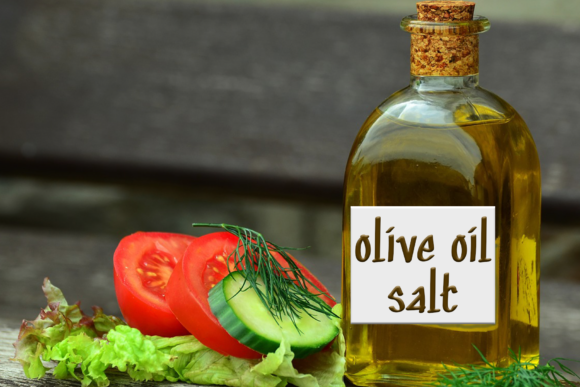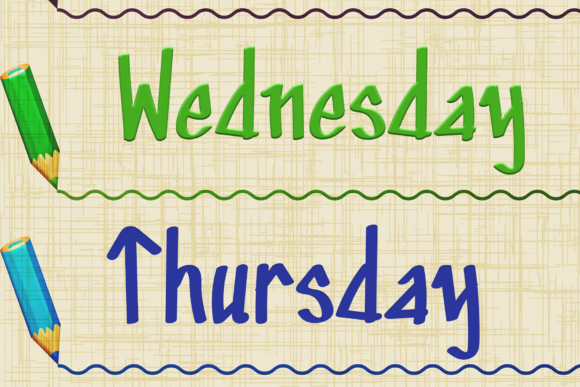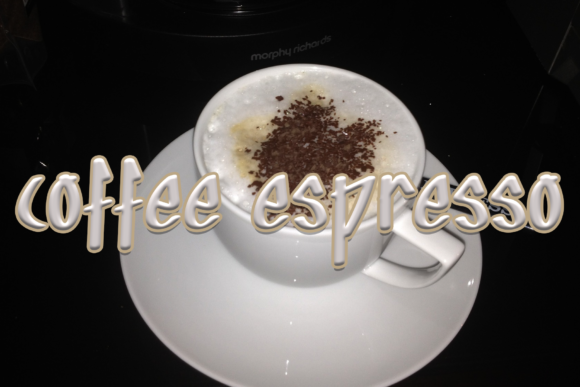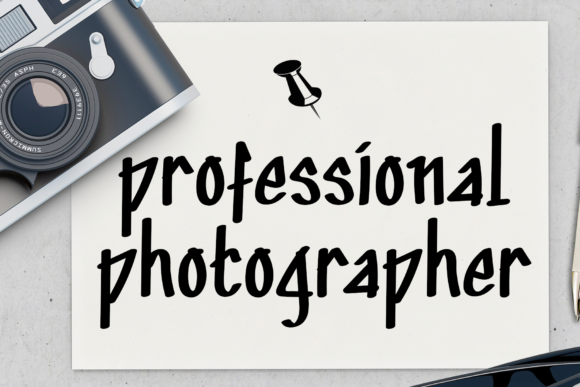
The Font that Stole My Heart: Always Love
I still remember the design project that led me to discover the Always Love font. I was working on a wedding invitation suite, and my client had a very specific vision: elegant, sophisticated, and with a personal touch. I scoured font libraries and marketplaces, but nothing seemed to fit the bill. That was until I stumbled upon Always Love. It’s a unique and elegant display font that immediately caught my eye, and I’ve been hooked ever since.
So, what makes Always Love so special? Here are a few things I love about this font:
- ✨ Unique and elegant design that’s perfect for special occasions
- ✅ Highly versatile and can be used for a variety of design projects, from thank you cards to logos
- 💕 Beautifully crafted to add a personal touch to any design
- 🤔 Some users may find the font a bit too ornate for certain projects
The Story Behind Always Love
While I couldn’t find any information on the designer’s background, it’s clear that Always Love was crafted with love and care. The font’s unique design and elegant feel make it perfect for special occasions and personal projects.
| Font Name | Always Love Font |
| Author | GiaLetter |
| What type of projects is Always Love best suited for? | Always Love is perfect for special occasions, such as weddings, thank you cards, and greeting cards. It’s also great for logos, business cards, and any other design that needs a personal touch. |
| Does Always Love support OpenType features? | Yes, Always Love supports OpenType features, including stylistic alternates and glyphs. You can access these features in compatible software, such as Adobe Photoshop and Illustrator. |